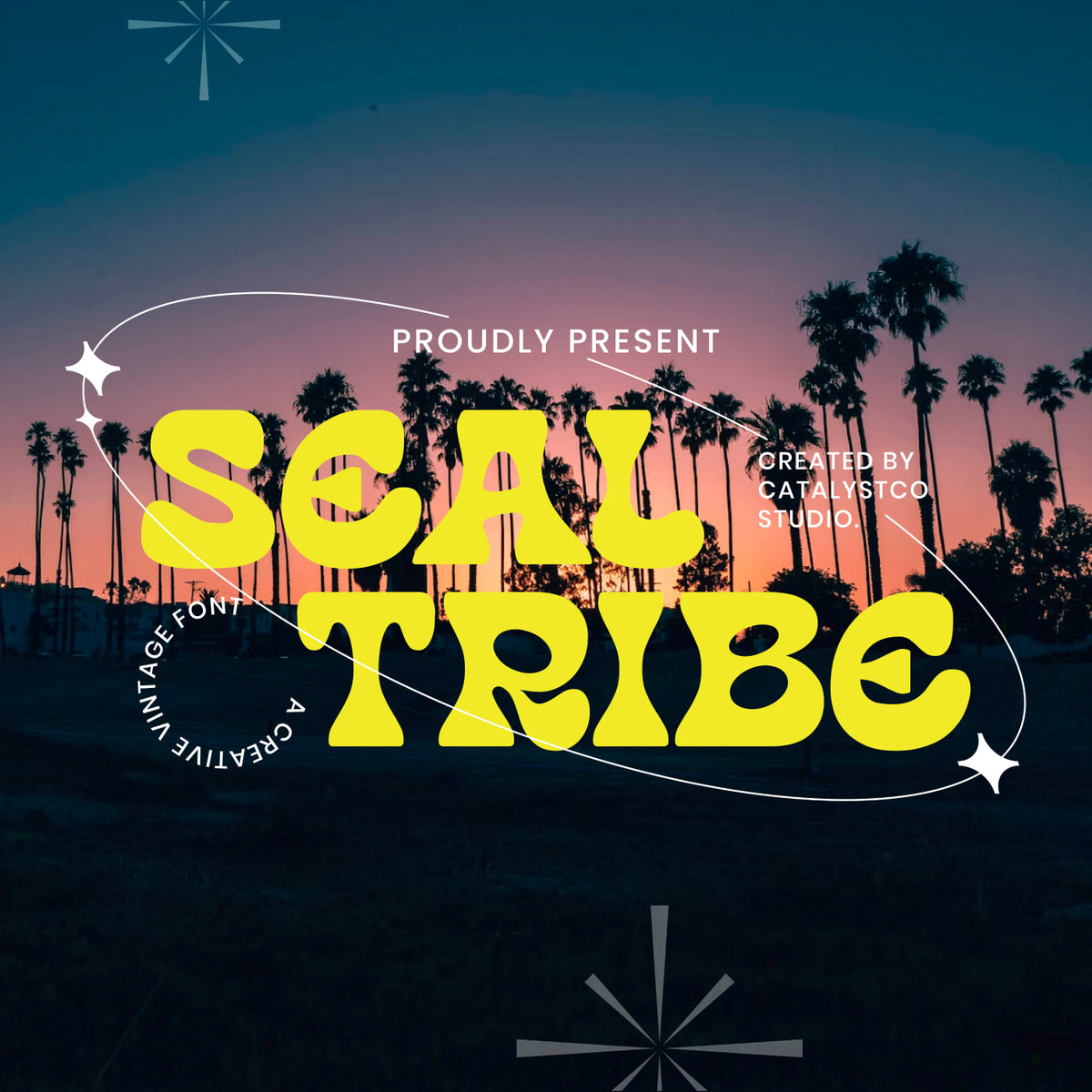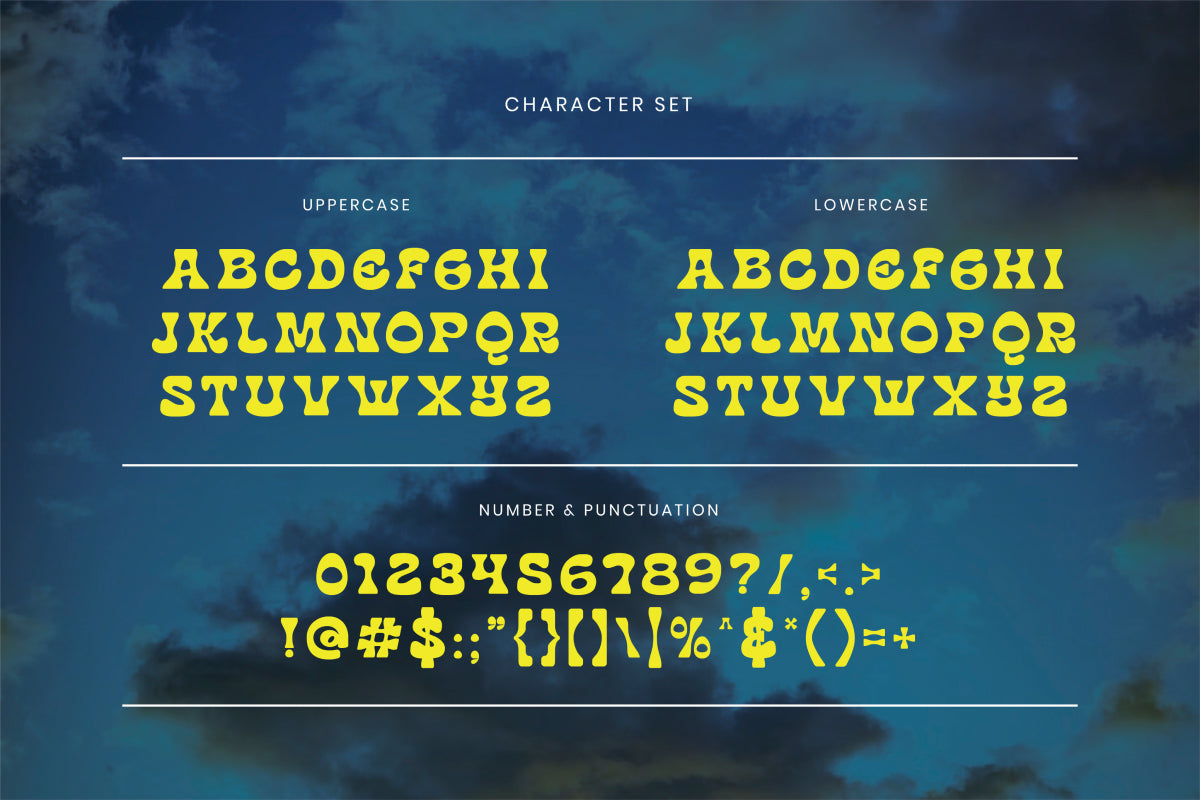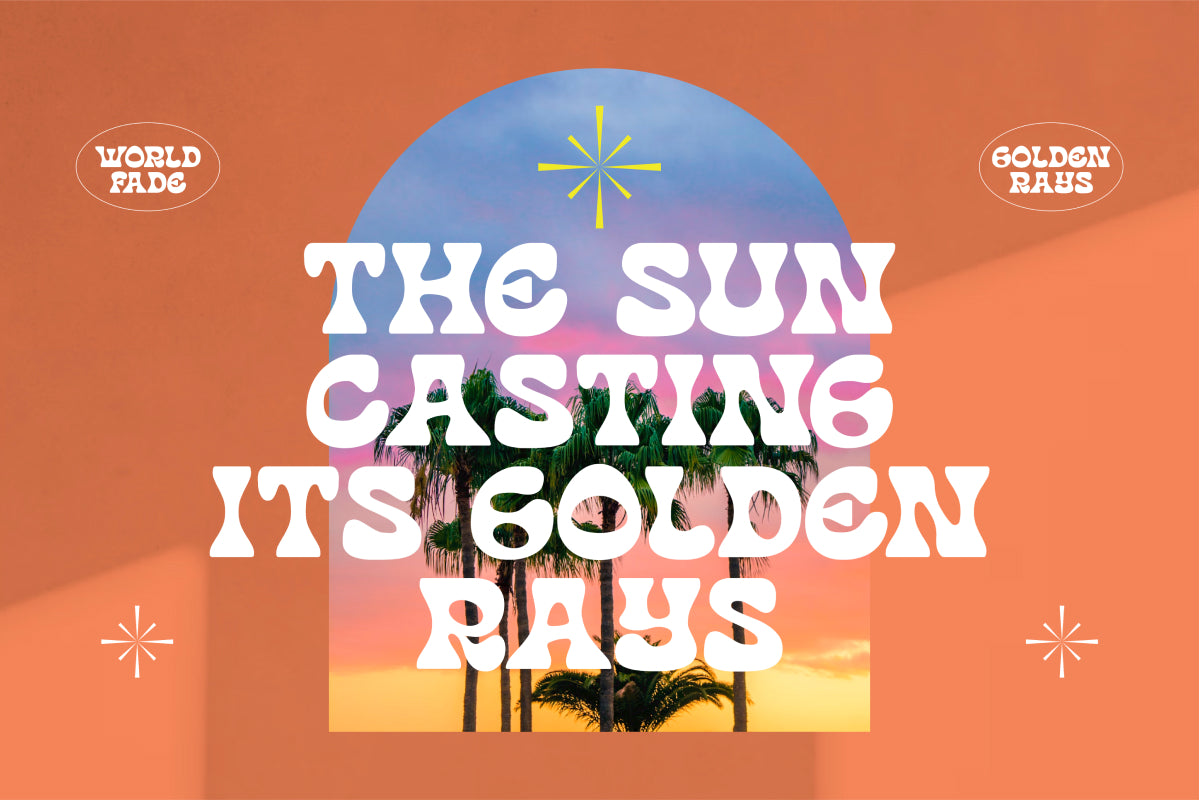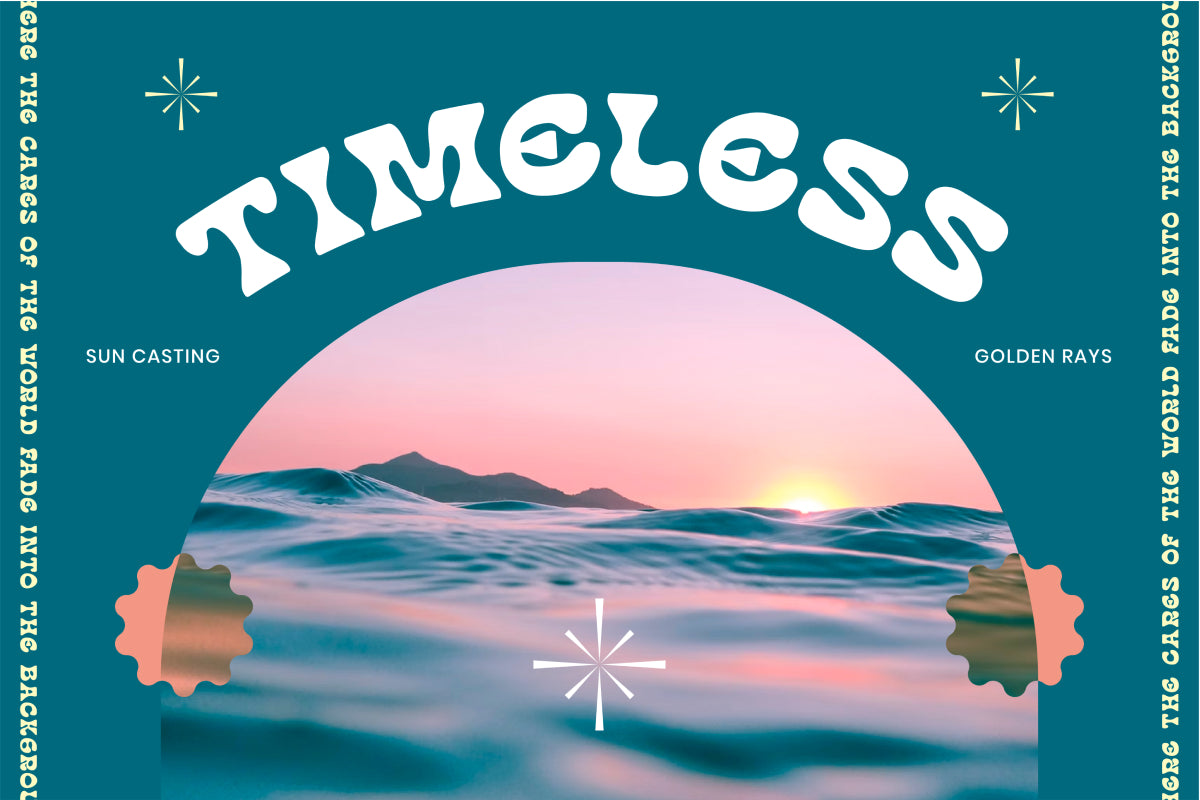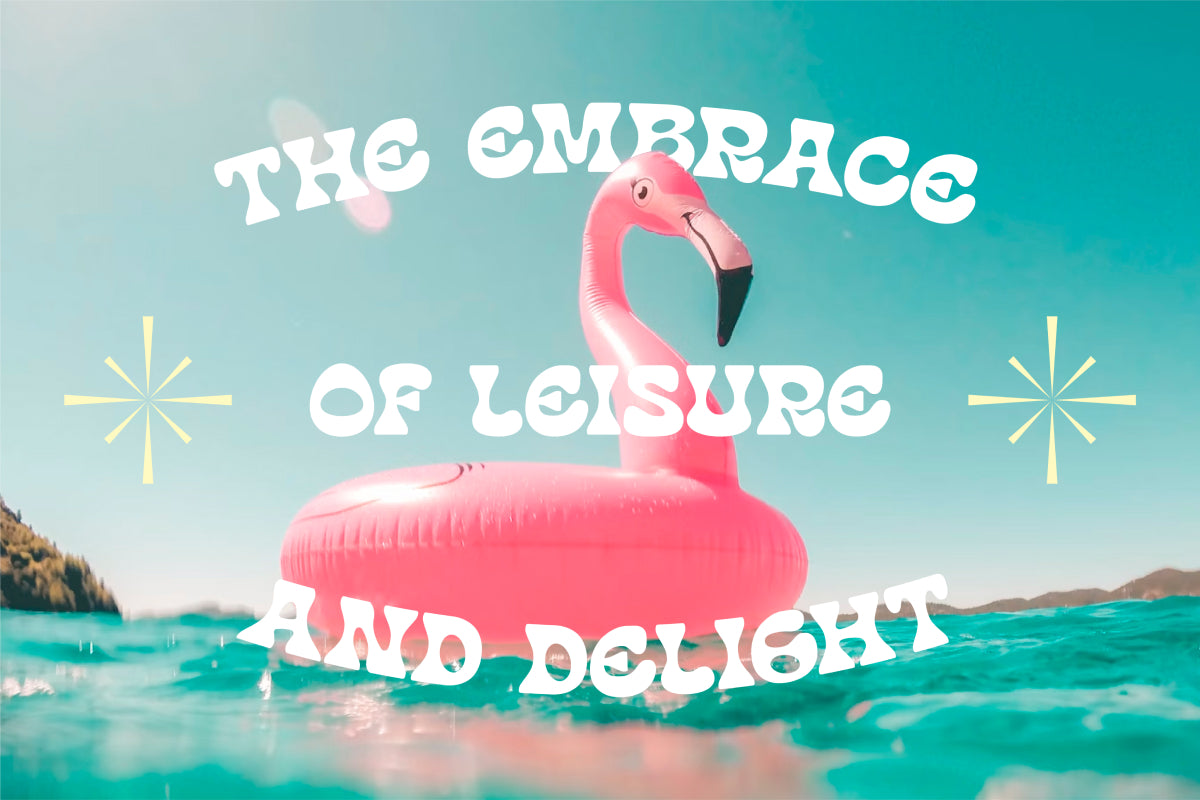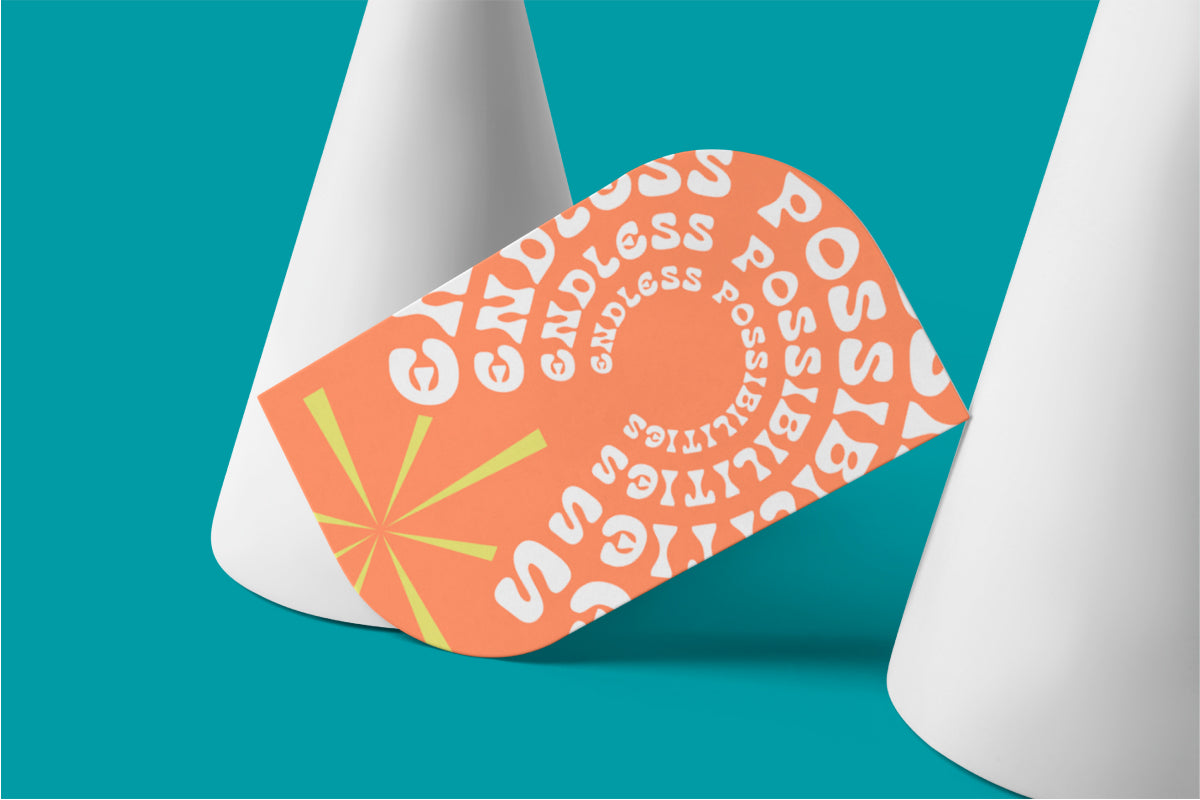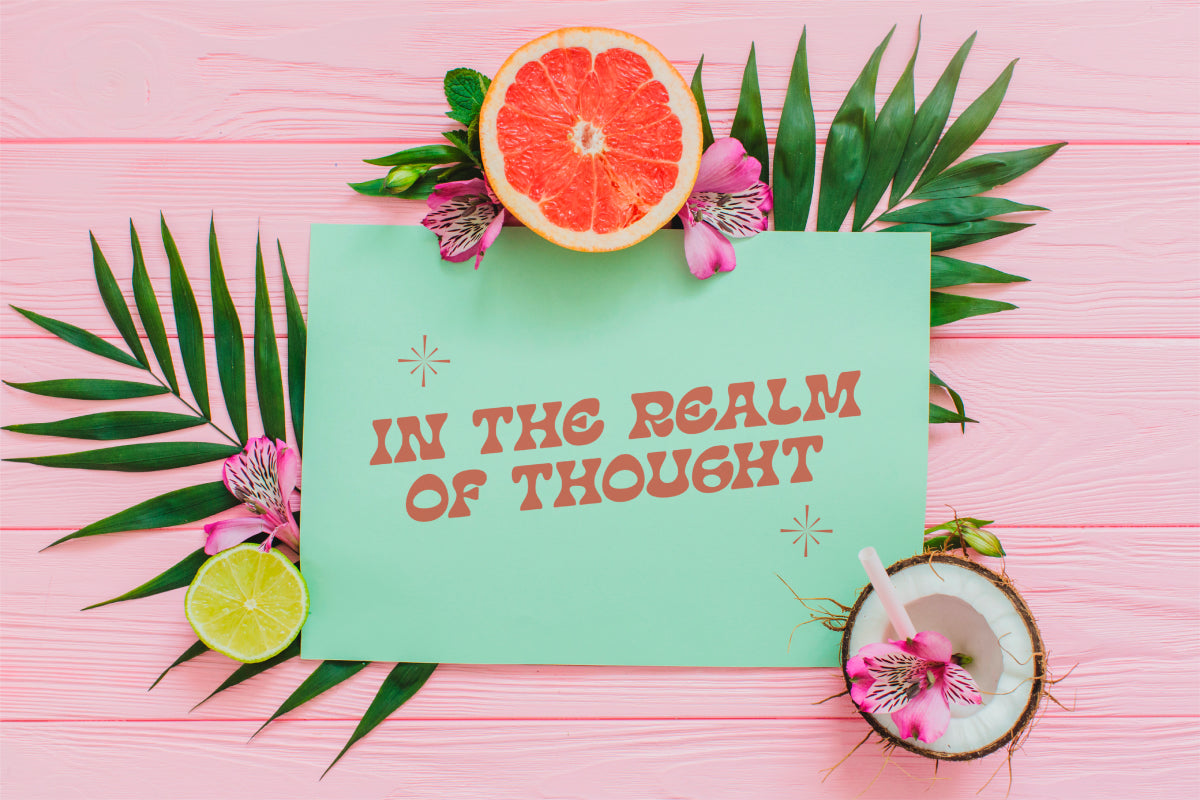
Seal Tribe Creative Vintage Font
Seal Tribe is a bold groovy serif typeface inspired by retro 70s aesthetics and playful beach culture. Its chunky curves, decorative shapes, and funky serif details create a strong visual rhythm that instantly evokes a fun and nostalgic mood. With a unique mix of vintage flair and modern craftsmanship, Seal Tribe is perfect for expressive display work.
Ideal for retro posters, summer branding, surf-themed visuals, apparel prints, music festival graphics, social media content, packaging, and bold headline designs. Complete with uppercase, lowercase, numbers, and punctuation, Seal Tribe delivers a versatile and creative serif option for designers who want a standout groovy aesthetic.
Seal Tribe is a bold serif typeface inspired by 70s retro and beach culture design, featuring chunky curves and decorative serif details. It includes uppercase and lowercase letters, numerals, punctuation, ligatures, and alternates, and is available in TTF, OTF, and WOFF formats.